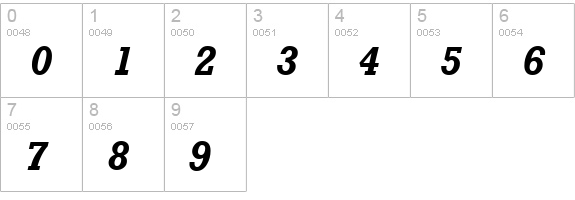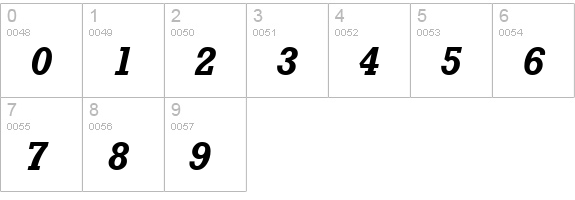
Rambault-BoldItalic Font Details
Rambault-BoldItalic is a striking and elegant font that exudes a sense of sophistication and modernity. Its bold and italicized design makes it perfect for creating eye-catching headlines, titles, and branding materials. The unique combination of thick strokes and slanted angles gives this font a dynamic and impactful appearance, making it stand out in any design project. What sets Rambault-BoldItalic apart is that it is available for free download at FontsMarket.com. This means that you can easily access this premium font without any cost, allowing you to elevate your designs without breaking the bank. Whether you are working on a professional project or a personal creative endeavor, Rambault-BoldItalic offers a versatile and stylish option that is sure to make a statement. Download this font today and add a touch of bold sophistication to your next design project.